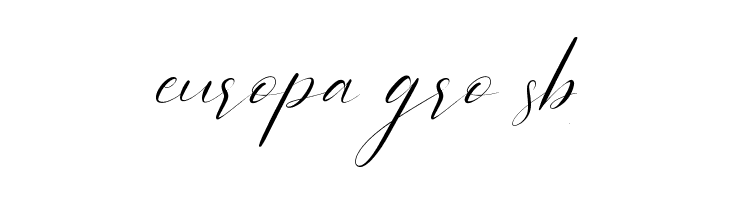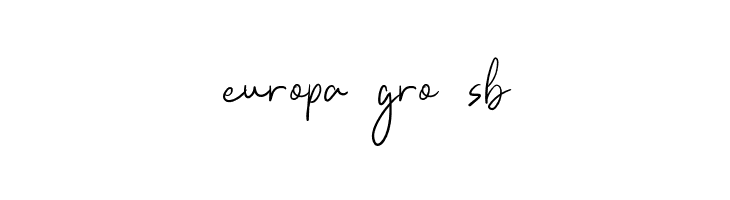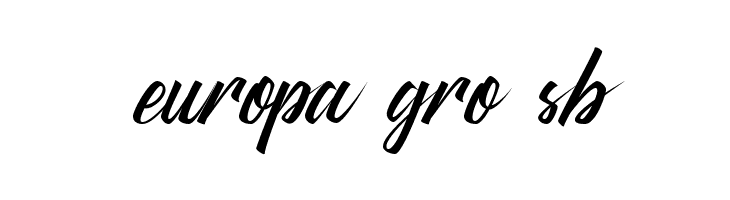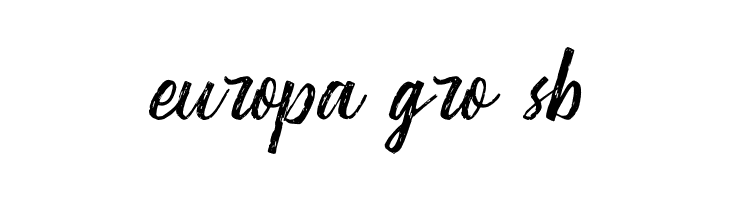
Mellati Script DEMO Regular Font
A flowing, handwritten style with thin, elegant strokes.
Kinderspiel Script DEMO Regular Font
A playful and casual handwritten font with fluid, dynamic strokes.
Washington ~ Rough Script DEMO Regular Font
A bold, rough script font with a hand-drawn, brush-like texture.
Sunday Morning Font
A playful, hand-drawn font with a bold and whimsical style.
Geralia - DEMO Regular Font
A fluid and elegant script font with smooth, flowing lines and cursive letterforms.
Mad Faith - DEMO Regular Font
A bold, dynamic font with sharp, angular strokes and a modern, edgy style.
Banana Super Font
A bold, playful handwritten font with flowing strokes and a lively appearance.
Hi Ashoka Italic Font
A bold, italic script font with dynamic curves and a playful style.
Chicken Soup Font
A bold, expressive script font with fluid, sweeping strokes and decorative flourishes.
Sientta Script Font
An elegant script font with flowing, cursive lines and high contrast strokes.
Hudiya - Modern Lovely Script Italic Font
A modern, lovely script font with an elegant italic style.
Hudiya - Modern Lovely Script Font
A modern script font with elegant, flowing cursive strokes.
before sunday Font
A lively and elegant script font with flowing, cursive letterforms.
Ancient Font
A dynamic, expressive handwritten font with fluid strokes and natural flow.
Anita Jane Font
A graceful script font with flowing, interconnected strokes and high contrast.
South Font
An elegant, flowing script font with smooth, cursive strokes.
Hi Ashoka Font
A bold, expressive handwritten font with dynamic strokes.
Automobile Contest Font
A dynamic, cursive script font with a vintage, distressed texture.
Mawar Merah Font
A lively and expressive script font with interconnected letters and artistic flair.
The Sandwich Font